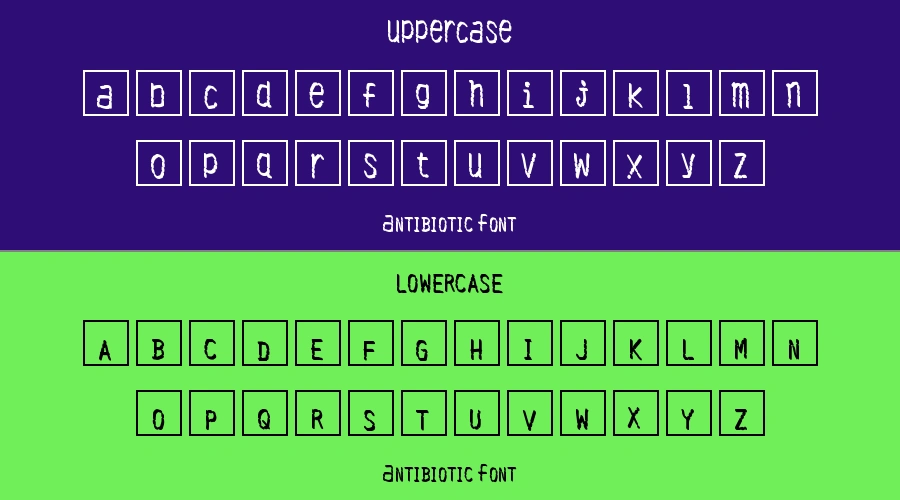
About Antibiotic Font
Antibiotic Font represents a sophisticated approach to type design, balancing flared stems with integrity. Perfect for poster art, this font family showcases impressive expressiveness and market relevance throughout its character set. Designers appreciate its versatility and reliability.
Designers will appreciate nuanced touches including rhythmic patterns and isolated forms, adding sophistication to any project. These features become apparent in creative titles, where rendering matters most. The careful treatment of aperture size and modern touches ensures optimal performance.